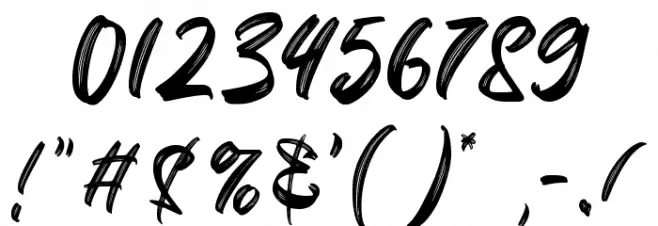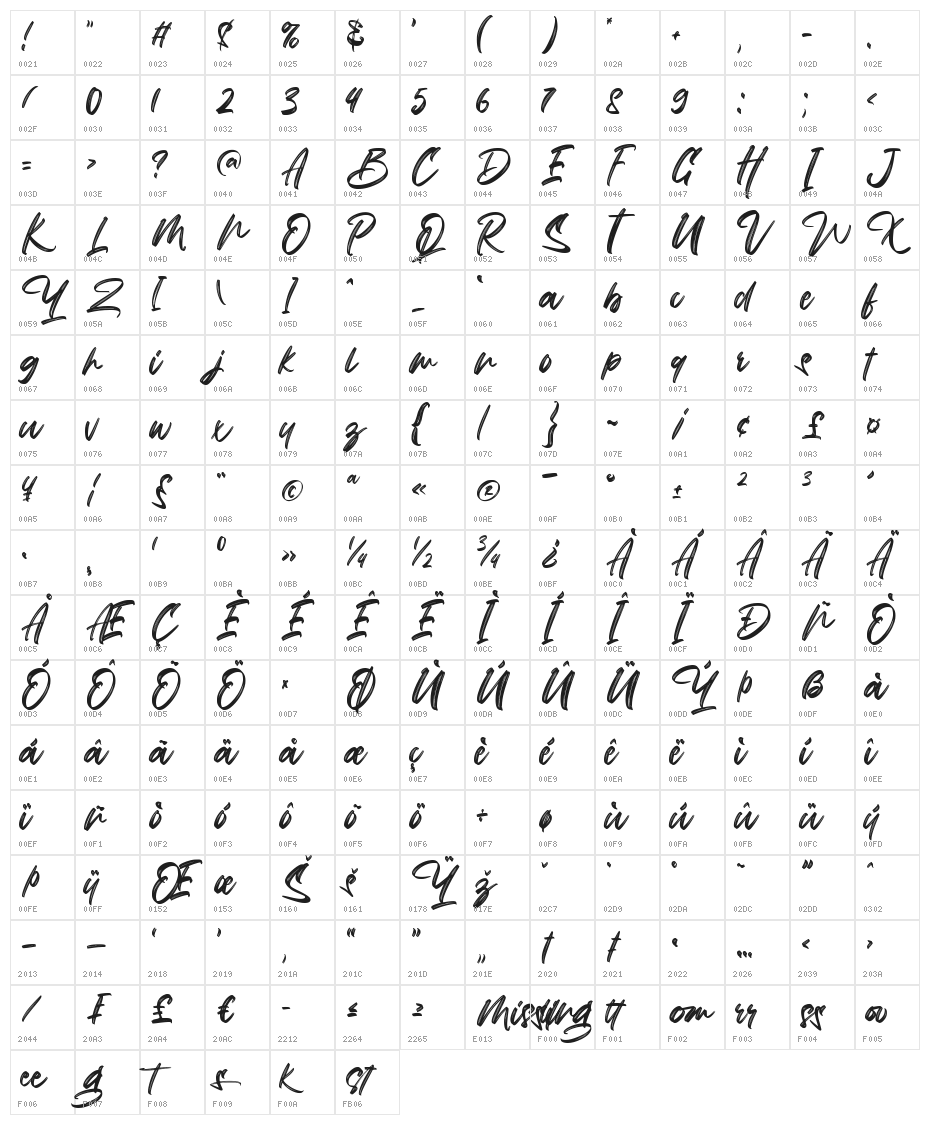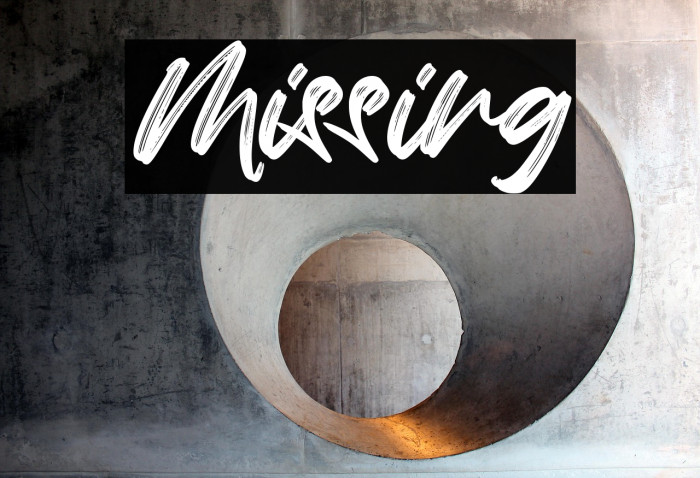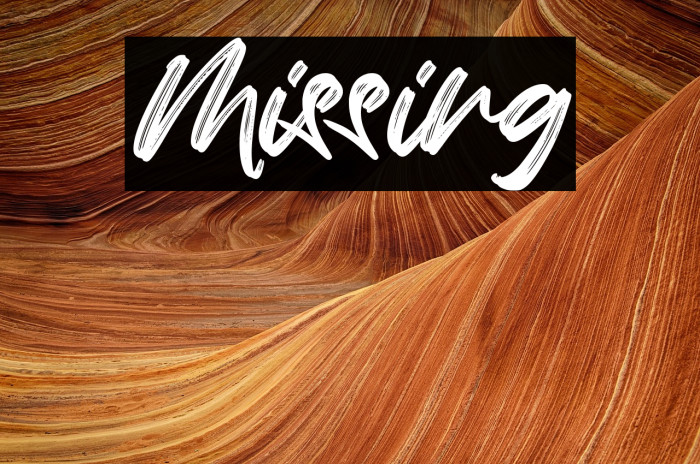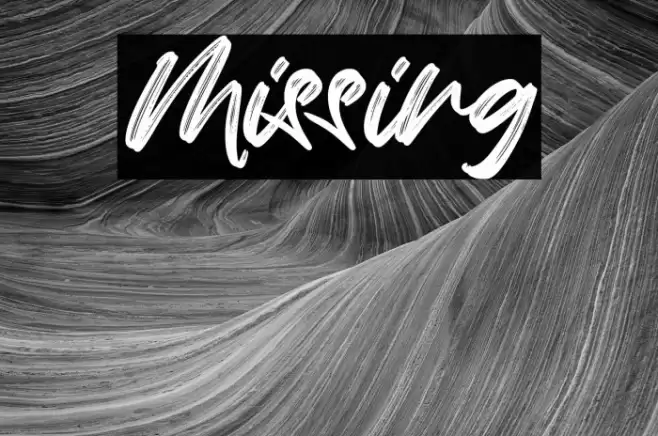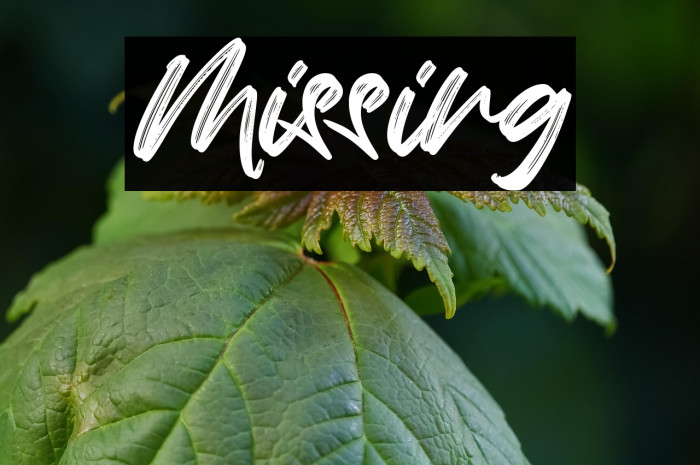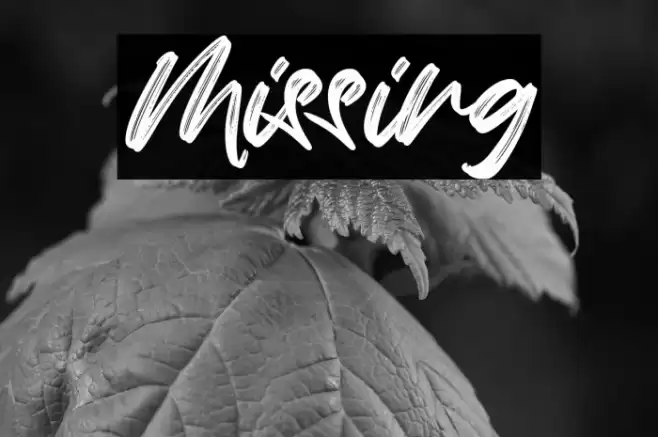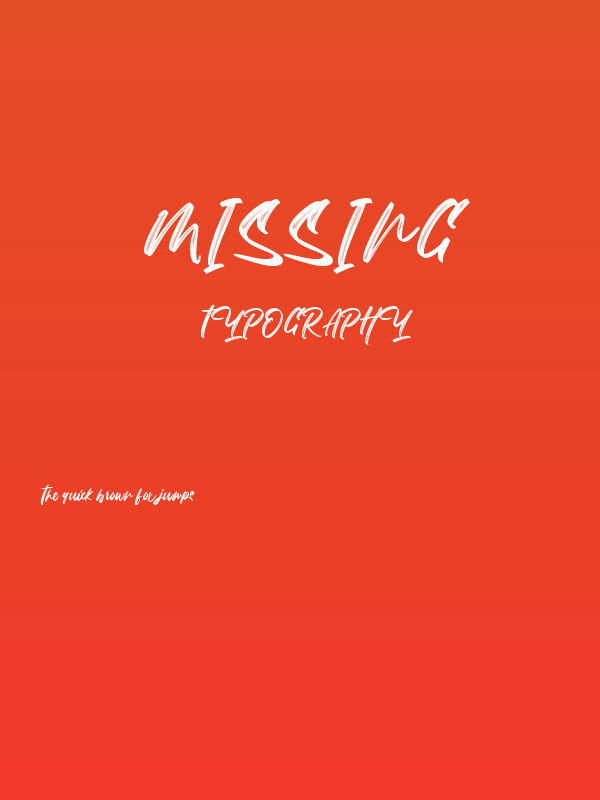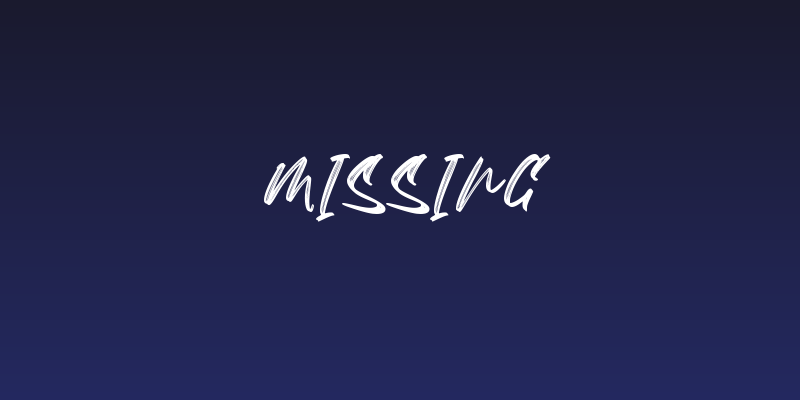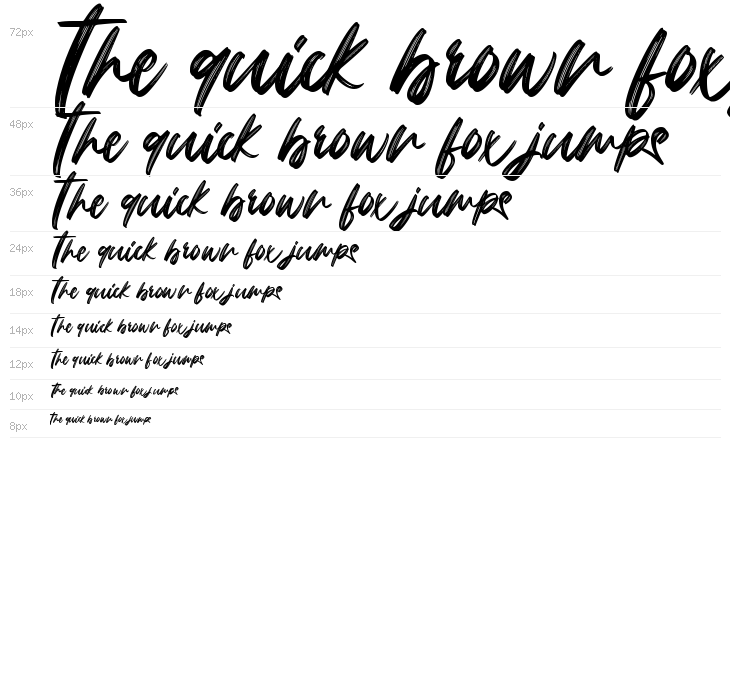
Missing Font
Missing Description
This font exhibits a bold, expressive style with a handwritten appearance. The strokes are dynamic and energetic, featuring a brush-like texture that adds a sense of movement and flair. The uppercase letters are slightly slanted, giving a casual yet sophisticated look. Lowercase letters maintain the same energetic flow, with some characters connecting smoothly. Numbers and special characters follow the same stylistic approach, ensuring consistency across all elements. The overall design is modern and artistic, making it suitable for creative projects that require a personal touch.
| Proposed Projects | Ideal for branding, posters, invitations, and social media graphics. |